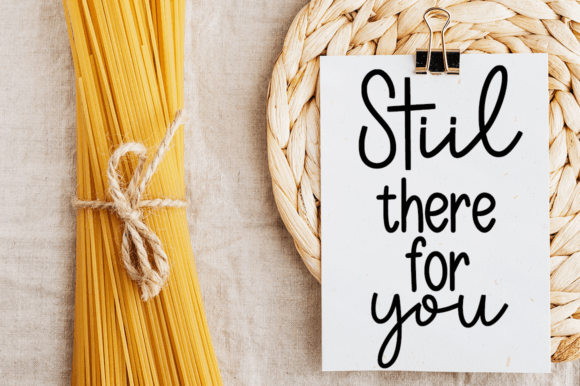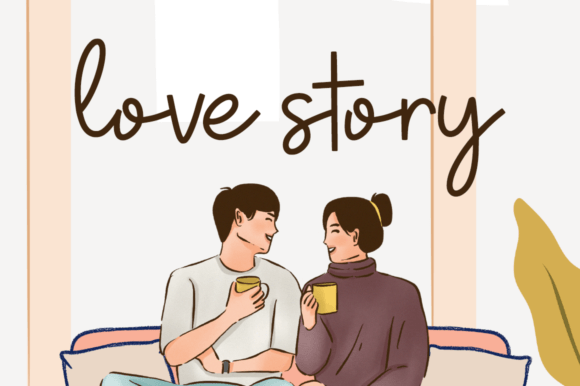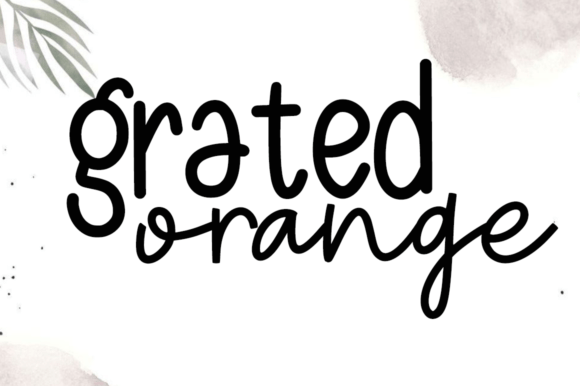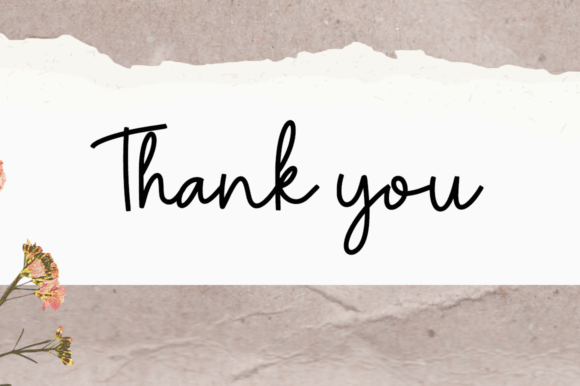
Garlic Bread Font
Garlic bread is a calligraphy design font duo, including Regular. This font is casual and beautiful with swash. Can be used for various purposes. such as logos, product packaging, wedding invitations, branding, headlines, signage, labels, signatures, book covers, posters, quotes, and more.